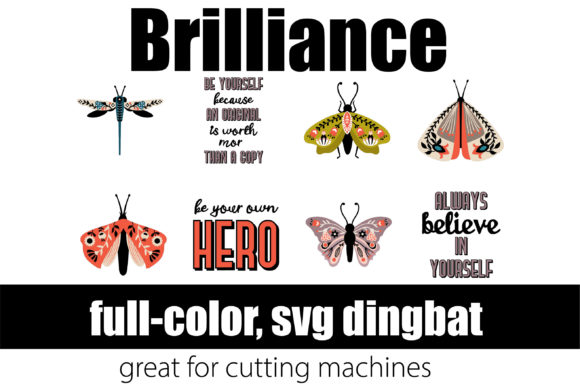
Dive into the enchanting world of Brilliance Font, where colors dance and creativity comes alive! This extraordinary font family is a symphony of vibrant hues, featuring a mesmerizing array of bugs in a kaleidoscope of colors.
Designed with SVG technology, Brilliance Font transcends the boundaries of ordinary fonts, offering an immersive visual experience that captivates the senses. Unleash your imagination and explore a world where your designs burst with life and personality.
Brilliance Font is the ultimate choice for SVG designers seeking to elevate their projects to new heights. Its vibrant palette and intricate details make it perfect for creating eye-catching logos, captivating social media graphics, stunning invitations, and personalized merchandise.
Transport yourself to a realm of creativity where colors ignite your passion and imagination. Brilliance Font is more than just a font; it's an artistic masterpiece that transforms your designs into captivating works of art.
Experience the magic of Brilliance Font today and let your creativity soar!